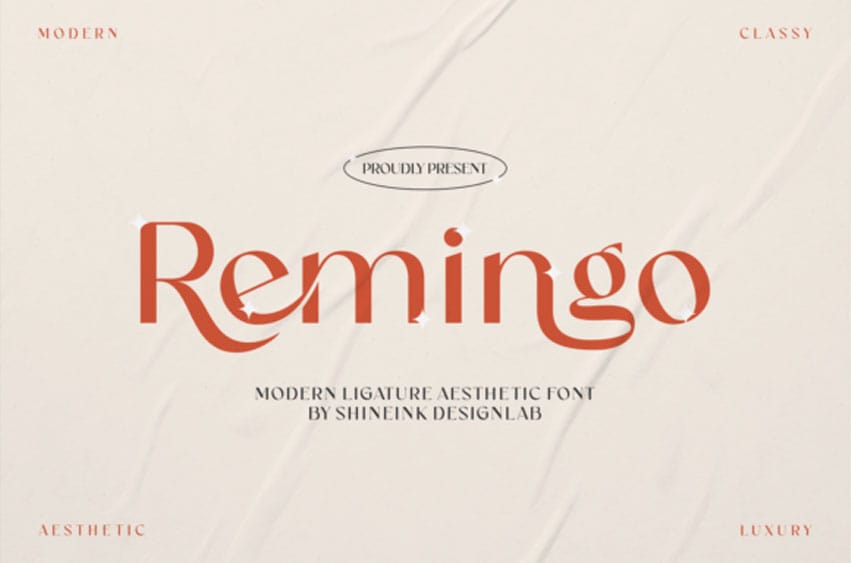
Remingo Font is a modern and aesthetic sans-serif typeface that combines simplicity with style. Its clean, minimalist letters are designed for clarity and legibility, making it perfect for digital and print materials. Its sleek and sophisticated appearance adds a touch of modernity to any design project, making it a versatile choice for a wide range of applications.